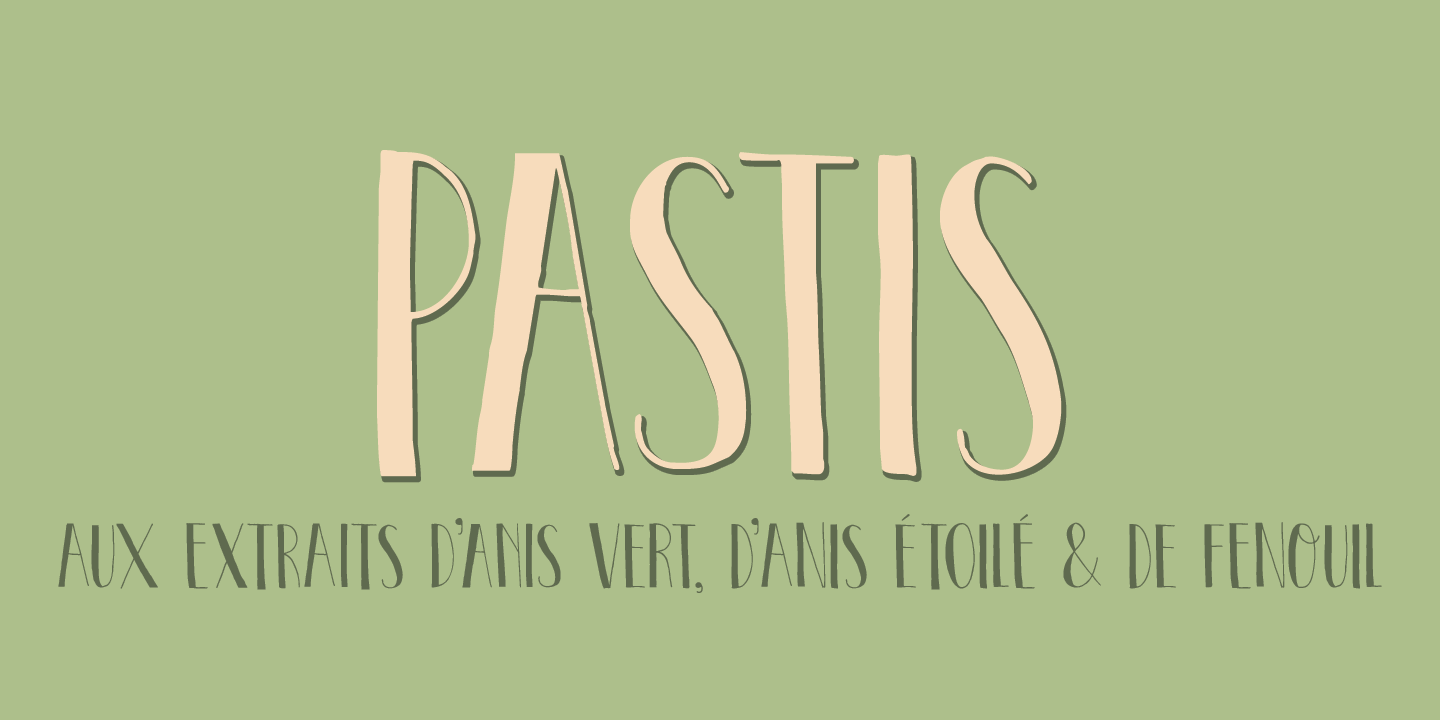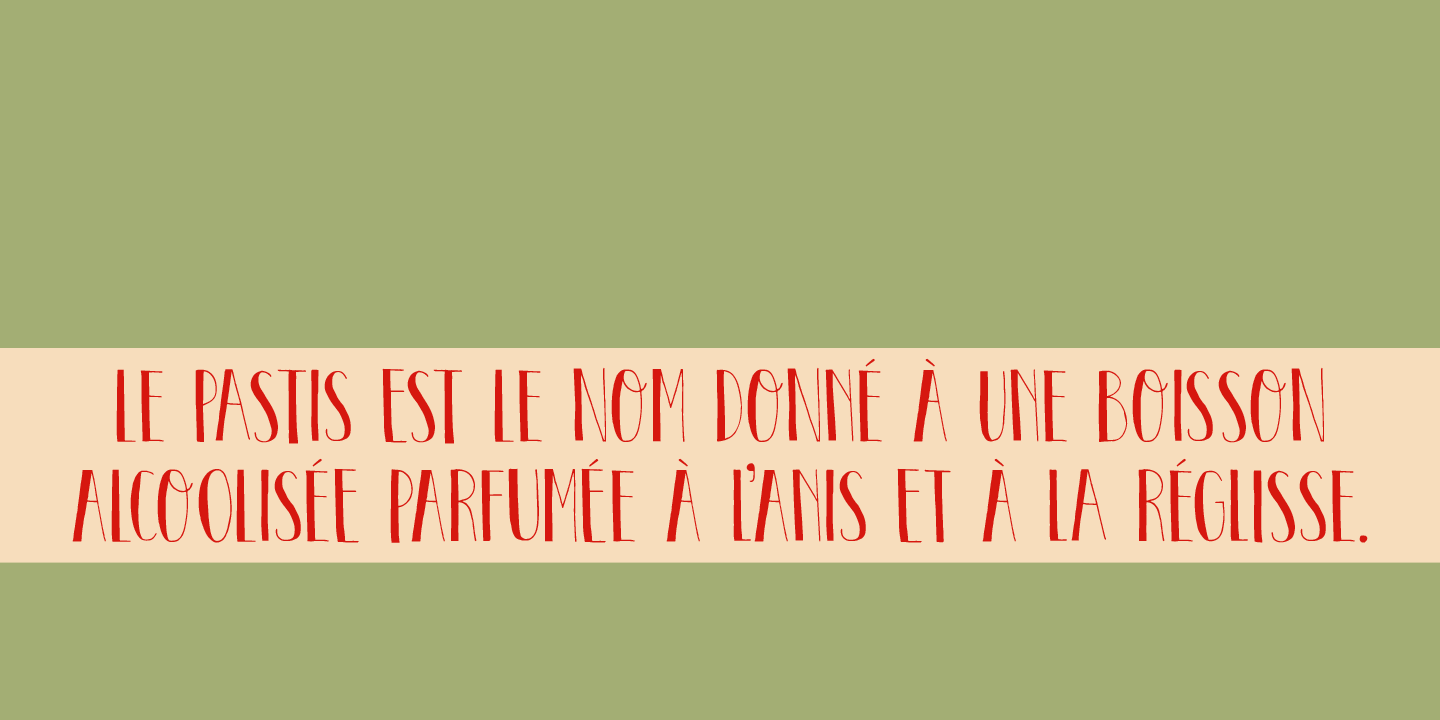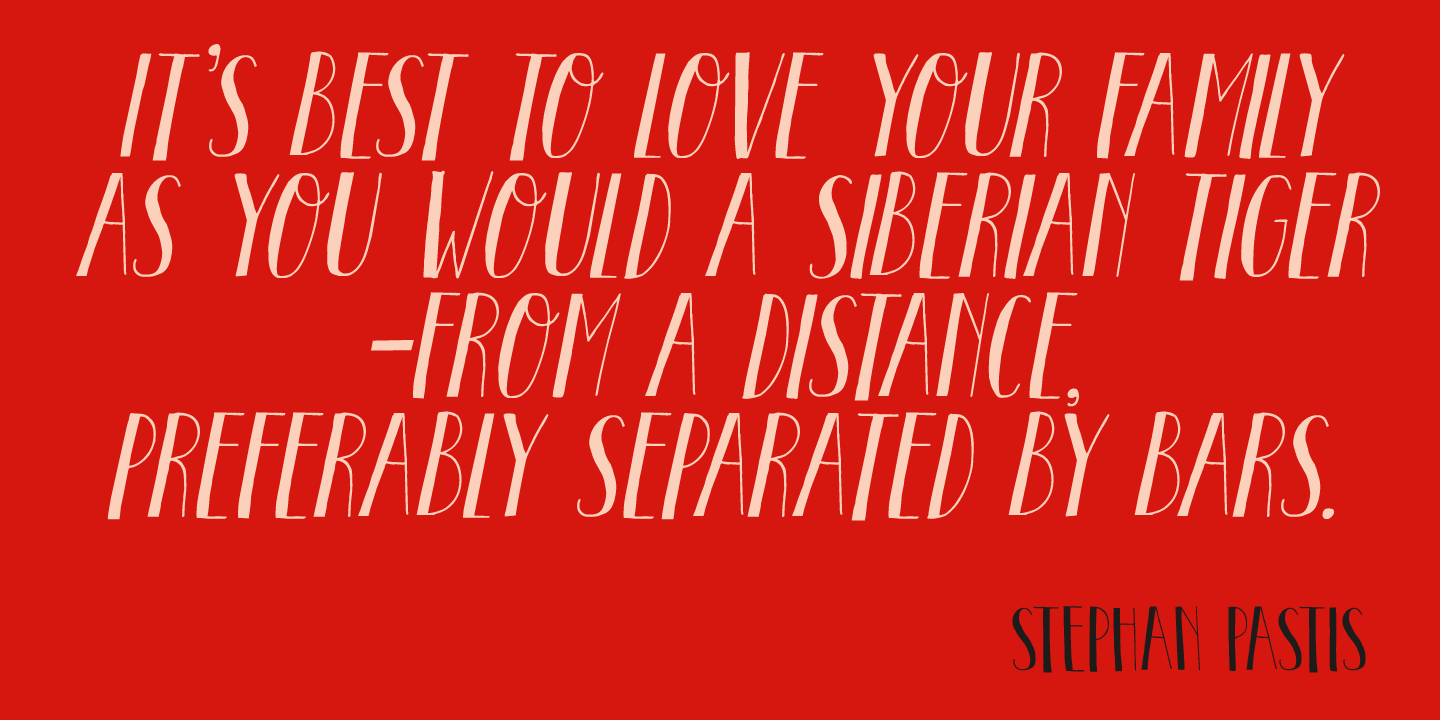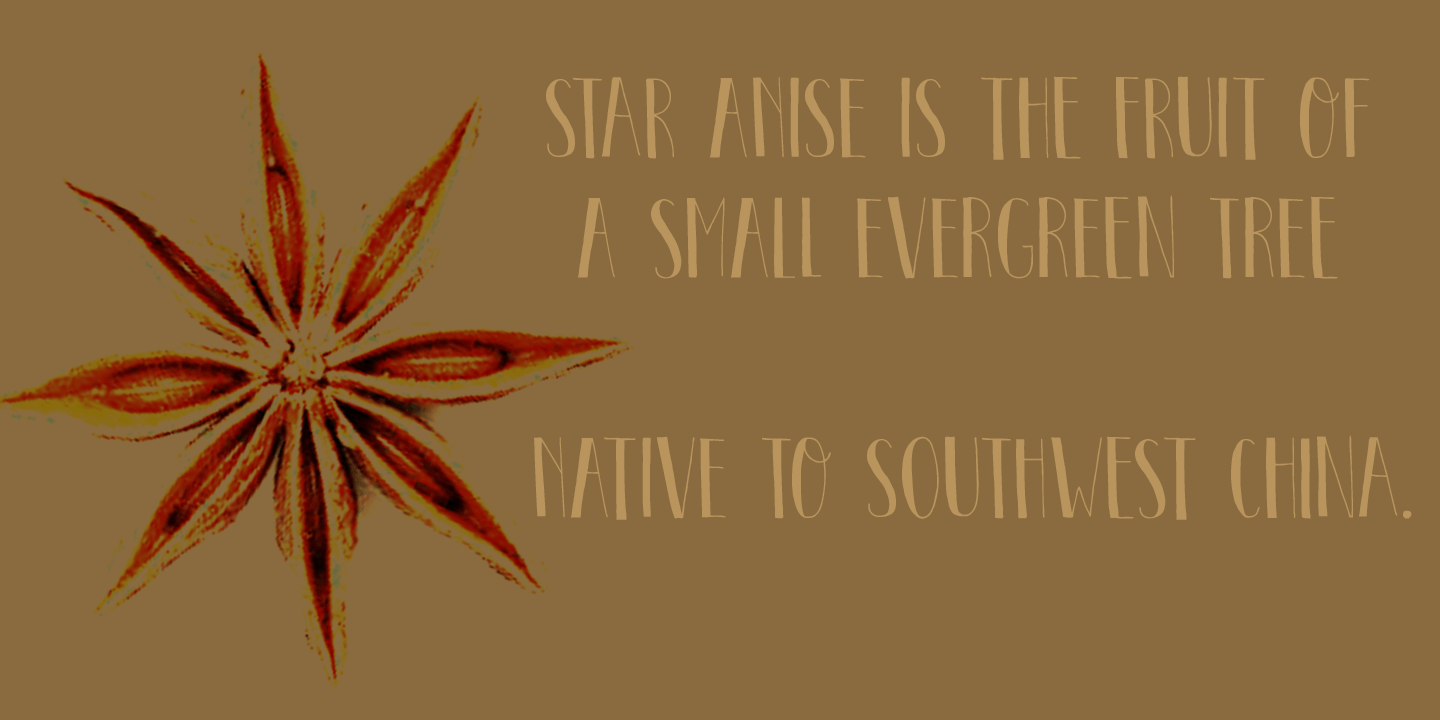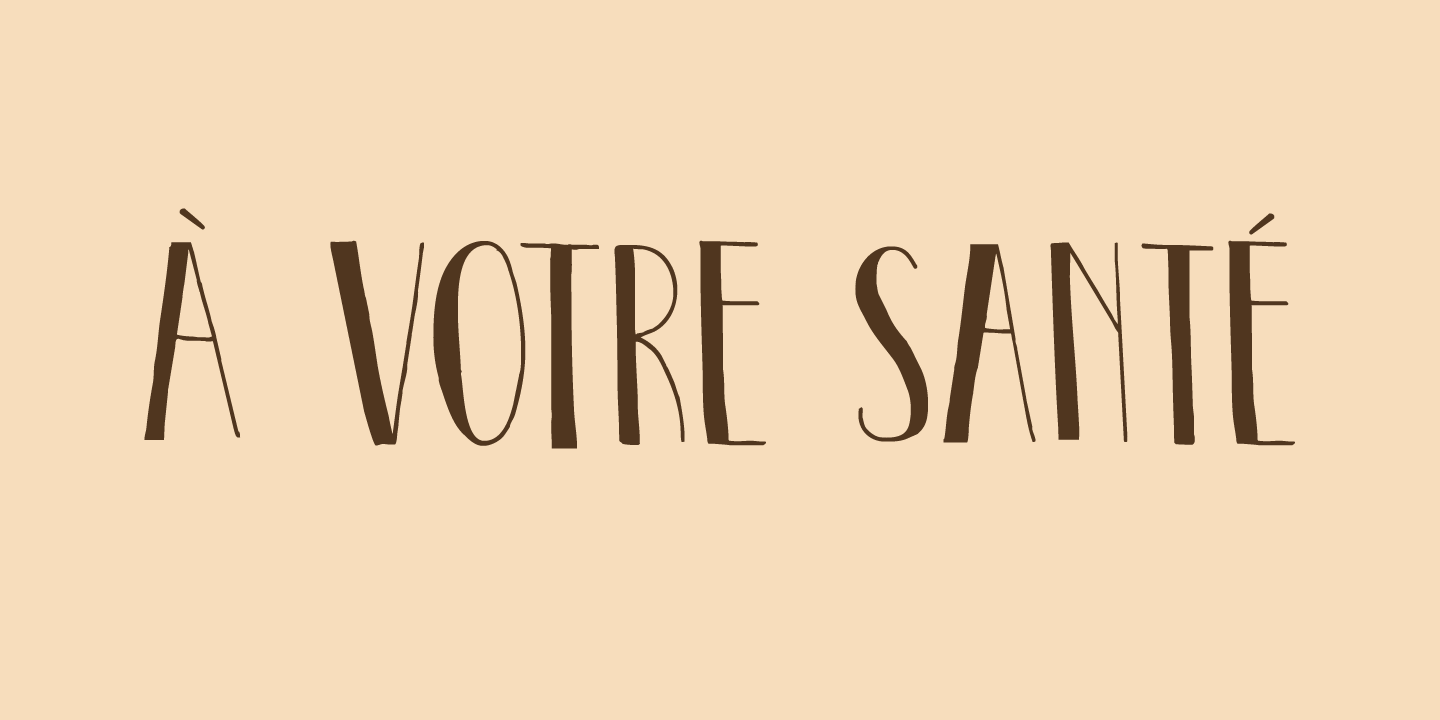
Pastis
Pastis is an anise-flavored drink from France - and a lovely font as well. Pastis is an all caps typeface with a different set of glyphs for upper and lower case. Use it for books, posters, ads and product packaging.